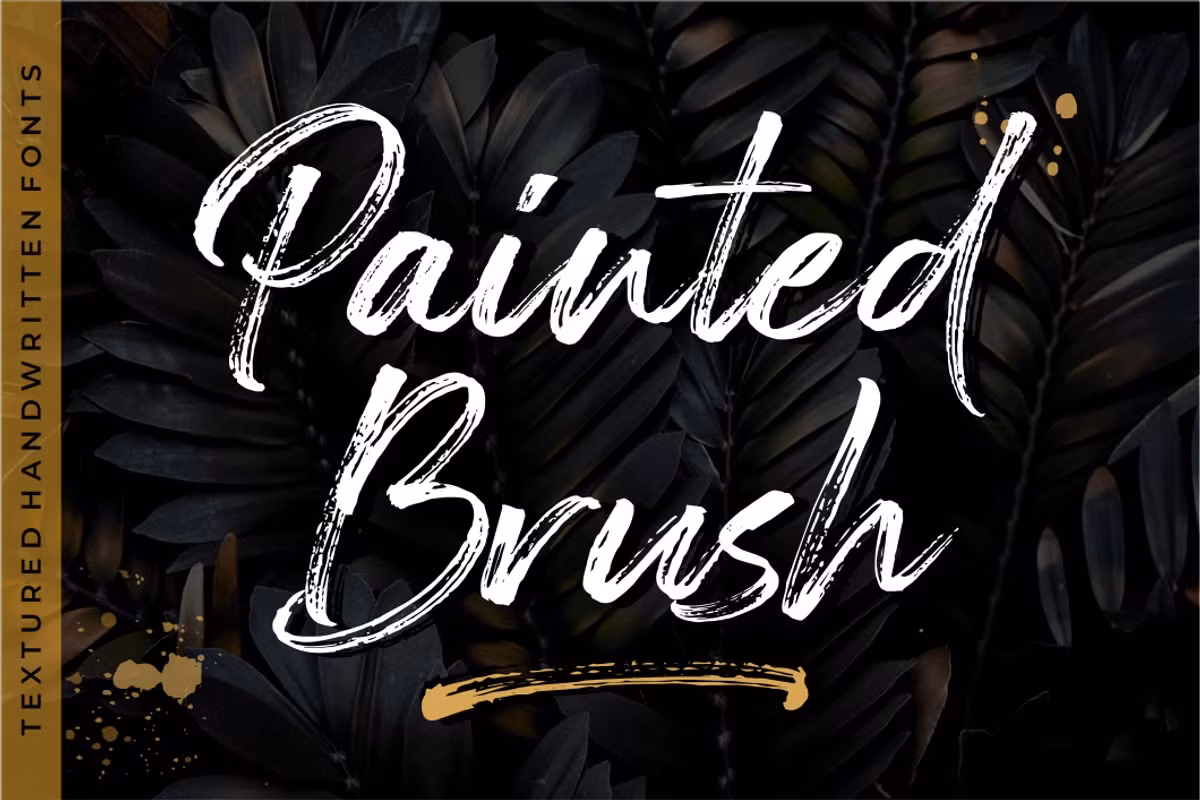
Painted Brush Fonts Free Download is a bold, expressive typeface collection that brings the raw energy of hand-painted strokes to your design work. Perfect for posters, album covers, apparel, branding, and street-style graphics, this font captures an artistic, rebellious spirit with every brush-marked letter.
With its textured edges and dynamic flow, Painted Brush is designed to make a statement. Whether you’re creating attention-grabbing headlines or edgy social media content, this font adds intensity and character that jumps off the screen or page.